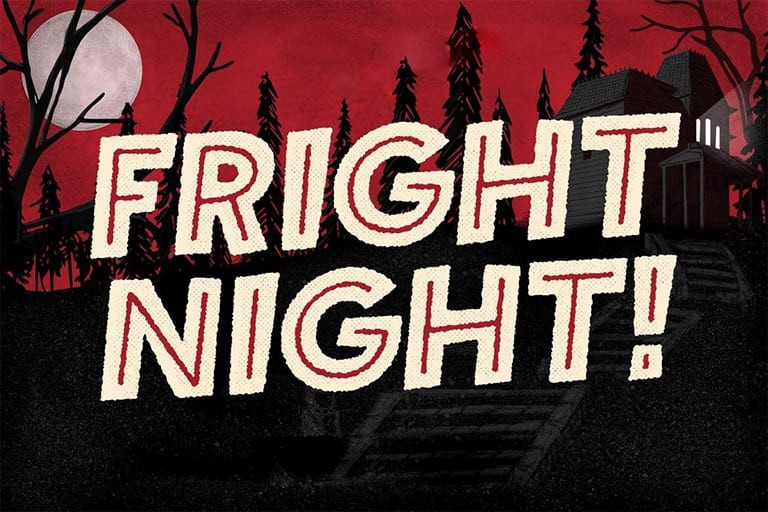
Halloween is a busy time. Not just for the kids, but also for professional designers. It’s that time of the year you start looking for Halloween-themed fonts, templates, vectors, and icons for designing all those spooky posters and greeting cards.
Well, this year you won’t have to spend hours searching for creative fonts for your Halloween designs. Because we already did the work for you and picked out the best spooky Halloween fonts that will make your work stand out from the crowd.
In this collection, we feature a collection of the best Halloween fonts that are suitable for all kinds of designs from posters, greeting cards, social media designs, and other Halloween and horror-themed designs. Have a look.
Making your Halloween designs look both scary and fun will be much easier when using this creative font. It features elements of both a quirky and a spooky design. The font comes with a hand-drawn look and in two styles: Regular and a bonus Catchwords typeface.
Check out Brain Melt, a spooky font that oozes with the lure of Halloween. It has a melted design, perfectly fitting for any project needing an eerie and scary feel. We wholeheartedly recommend you try out Brain Melt for your upcoming Halloween project.
Pumpkin’s Brush is a Halloween-themed font that comes with a classic design. It features a unique hand-painted design that’ll give a more creative look to your print and digital design works. The font comes in 3 different versions: Normal, slant, and a special character typeface.
Fright Night is a horror-themed font that comes with a vintage design. This is the kind of font that you usually see in classic horror movie posters. It’s perfect for crafting a poster or a flyer for a Halloween-themed event. The font comes in 12 different styles and more than 300 glyphs.
This retro-themed Halloween font features a true horror-filled design that makes it most suitable for designing flyers and posters for horror theme parks and carnivals. You can also use it for greeting card designs as well. The font is available in 6 different styles, including grunge and inline.
Gallow Tree is a creative Halloween-themed brush font featuring a spooky design. It features a natural hand-drawn design, which has been drawn using a Faber Castell brush pen and the font includes 370 glyphs as well.
Another horror-themed font that’s ideal for designing both Halloween and horror-themed designs such as greeting cards, posters, flyers, and even title pages. The font comes in 2 styles: Regular and slanted. It also includes 240 glyphs.
If you want to nail the perfect Halloween horror look in your designs, Kreature is well worth checking out. It features a ghostly design that will look great on Halloween-themed posters, flyers, social media posts, t-shirts, mobile covers, and invitations.
Mukadua is a unique font that comes with two different styles of fonts. One version of the font features a horror-filled spooky design while the other has an enchanted and delightful design. It’s sort of like two fonts with designs for heaven and hell.
Featuring a true horror design, this Halloween font gives out a scary vibe that will allow you to create terrifying titles for movie posters, book covers, and various other design projects. The font is available in regular and slanted versions with all-caps letters.
Jack Reacher is a display font that comes with a unique spooky design. Even though it has no relation to the books or the movie series of the same name, the font does have an interesting design that will add a scary look to your Halloween-themed greeting cards and posters.
This handmade horror-themed font will probably remind you of the old movie titles from the 1960s Alfred Hitchcock movies. The font includes multilingual support and it’s ideal for designing posters, titles, greeting cards, and even T-shirt designs.
Ghoul is a creative Halloween-themed font that features a unique design with modern elements. The rounded edges and the quirky look of the font make it less scary and more suitable for kid’s themed poster and greeting card designs.
Herald is a modern serif font with a quirky design. While it doesn’t have a spooky or a horror look, this font will fit in nicely with your Halloween greeting cards, posters, and flyers for children and fun occasions. It also comes bundled with a bunch of vector graphics and elements too.
Next up we have Babadook, a Halloween font that is guaranteed to send chills down the spine of your audience. It comes bundled with a range of amazing features, and is compatible with Adobe Photoshop, Adobe InDesign, Adobe Illustrator, and Microsoft Word.
Lunar Tundra is a creative brush font that features a spooky design. It’s ideal for designing posters, T-shirts, social media posts, and various other designs related to Halloween. The font will also look great with a horror-themed design with the right mix of colors.
This spooky font features a gothic horror-themed design that makes it most suitable for designing posters, flyers, and titles for horror-themed designs. The font comes in 6 different versions, including regular, rust, rough, and variations with shadows.